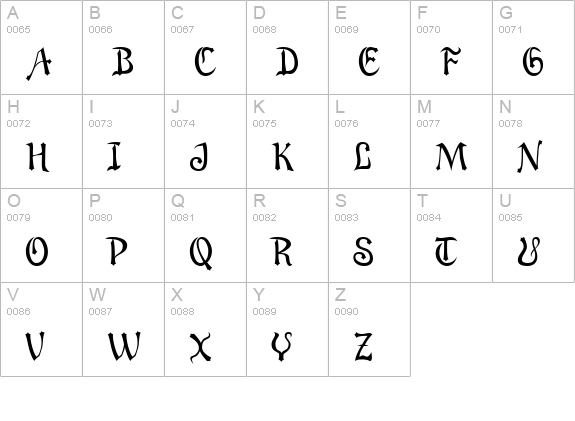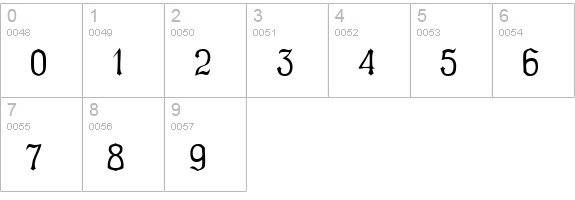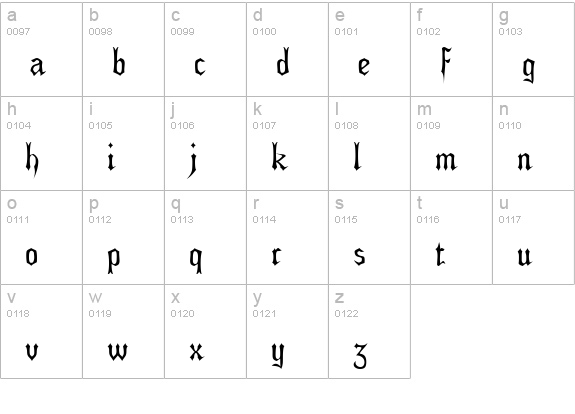
Auldroon font is a modern and stylish typeface that exudes elegance and sophistication. With its sleek lines and distinctive letterforms, Auldroon is perfect for adding a touch of class to any design project. Whether you're creating a logo, designing a poster, or crafting a website, this versatile font is sure to make a statement. The best part? Auldroon font is completely free to download at FontsMarket.com. That's right, you can elevate your designs without spending a dime. So why wait? Download Auldroon font today and let your creativity shine!